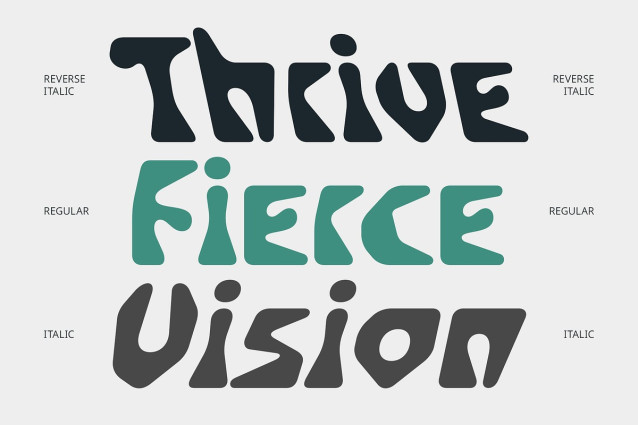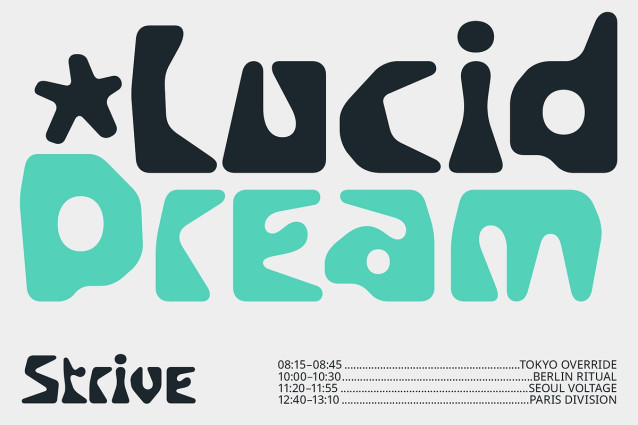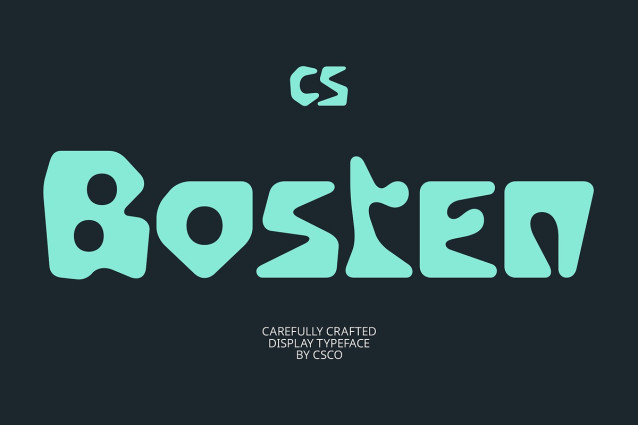
CS Bosten Font
CS Bosten Font is a display font that boldly embraces an eccentric and experimental approach. Breaking away from traditional form, it delivers a visual language that’s unconventional, expressive, and unapologetically bold.
Creative Distortion and Asymmetry Each letter in CS Bosten features unexpected twists—whether through creative distortion, asymmetrical shapes, or bold style fusion. The result is a wild and imaginative look that feels free-spirited and rebellious, perfect for designers looking to challenge the norm.
Funky and Expressive Aesthetic With its funky attitude and visually loud personality, CS Bosten brings energy and chaos in the best way. It’s a font that thrives in spaces where uniqueness and self-expression are key—full of movement, attitude, and surprise.
Ideal for Experimental and Artistic Designs Perfect for alternative music posters, avant-garde art projects, or bold brand identities, CS Bosten delivers a raw, creative edge. It captures attention immediately and leaves a lasting impression—ideal for those wanting to think and design outside the box.
Designed for Designers Who Dare CS Bosten is more than just a typeface—it’s a creative statement. Whether used in expressive branding, editorial art pieces, or unconventional layouts, it invites viewers into a world of visual experimentation and unfiltered character.